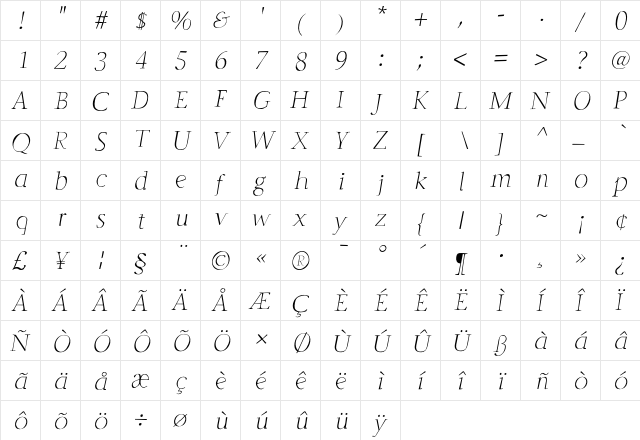
Godlike Italic
Design Context for Godlike Typeface
Godlike offers clean, dependable letterforms without strong stylistic allegiance, making it a practical choice for designers who need flexibility. The slanted form adds forward momentum and visual energy.